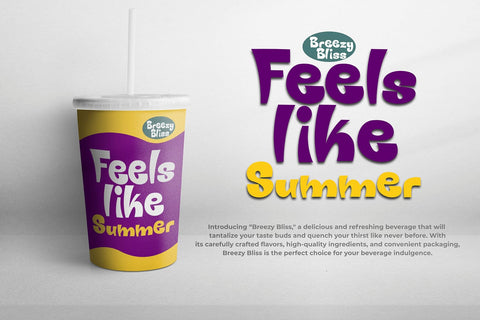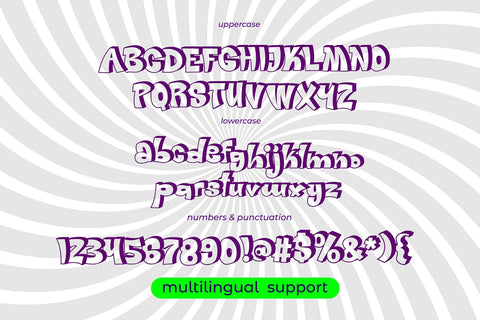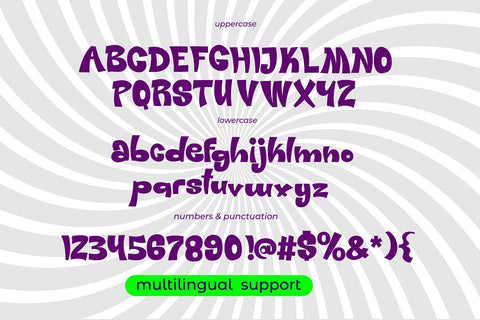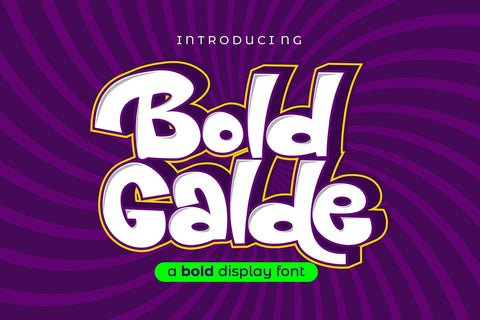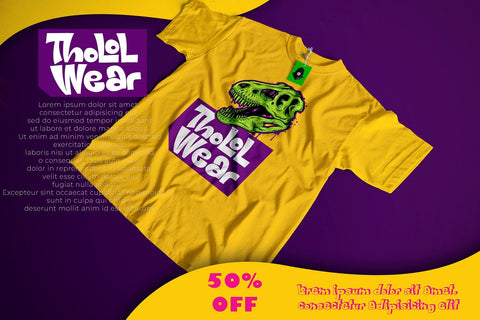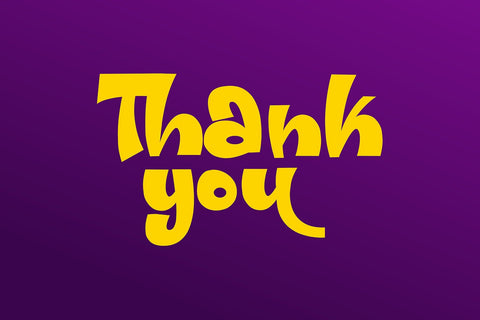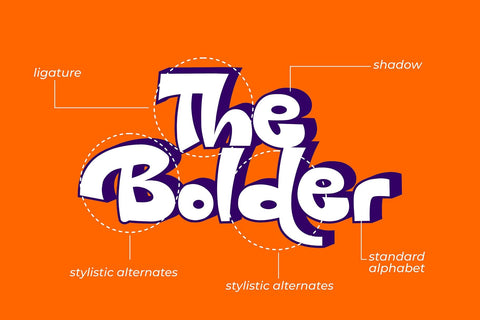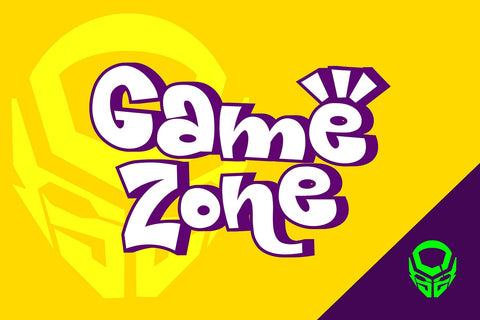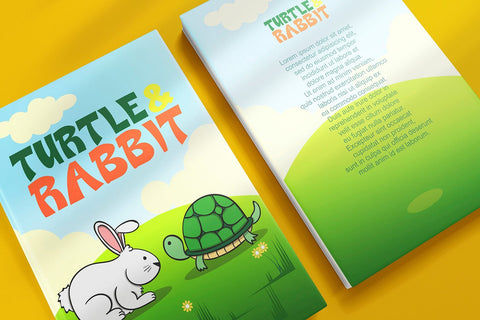
Bolde Galde - 3D font
"Bolde Galde" is a cute display font characterized by thick and rounded letterforms, making it a great choice for design projects aimed at children, such as children's games, book covers, and any projects related to schools. With its playful and friendly appearance, this font adds a touch of whimsy and charm to your designs, making them more engaging and enjoyable for young audiences. The simplicity and clarity of "Bolde Galde" make it easy to read and understand, making it an excellent choice for educational materials and other projects aimed at young learners.